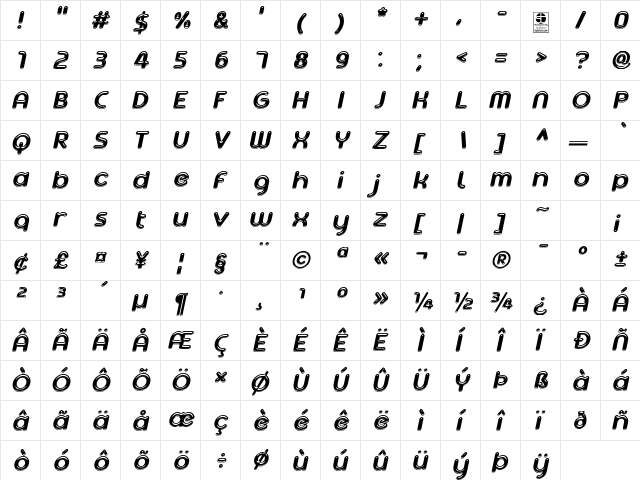
Ageta Chubby Demo Italic
| Foundry | StudioTypo |
| Designer | Mehmet Abac |
Design Context for Ageta Chubby Demo Typeface
Ageta Chubby Demo is a composed and adaptable typeface that performs quietly and consistently across a wide range of design contexts. Its italic angle brings a sense of urgency and motion to the letterforms.
Pro Tip: Use Ageta Chubby Demo for emphasis, pull quotes, and subheadings where its slanted energy can add rhythm to the layout.